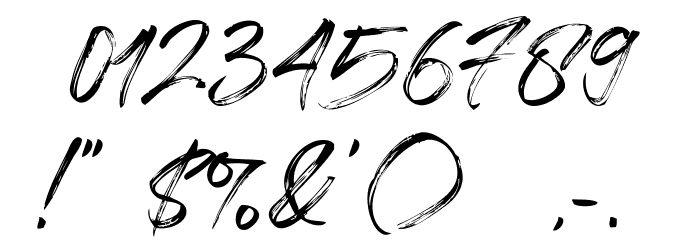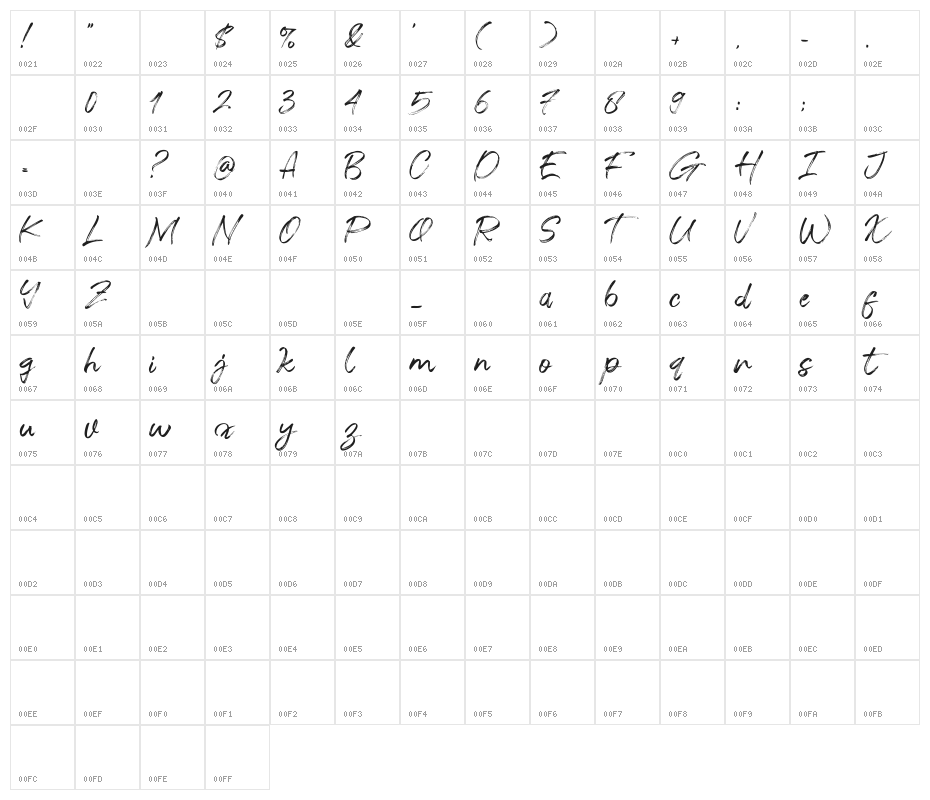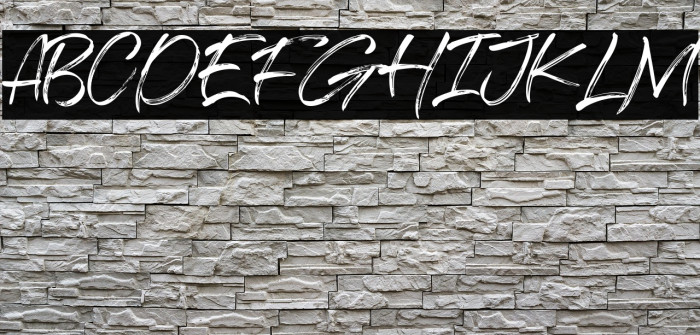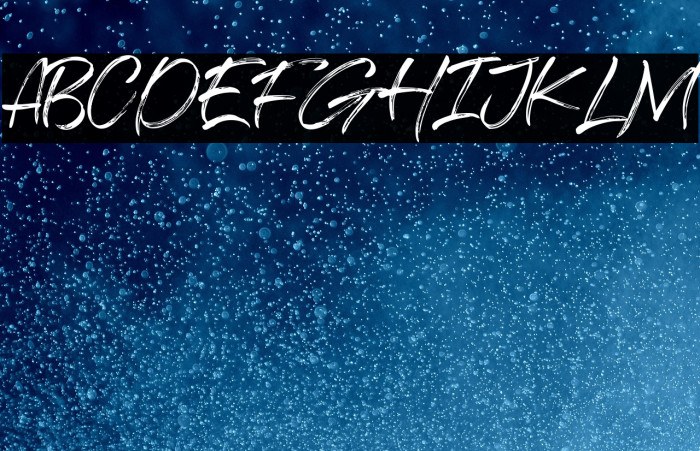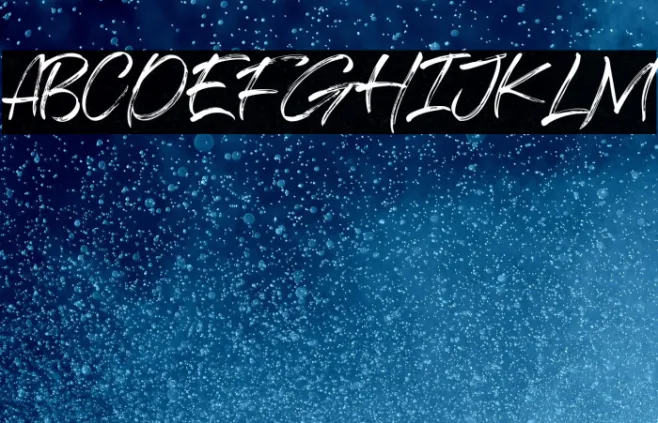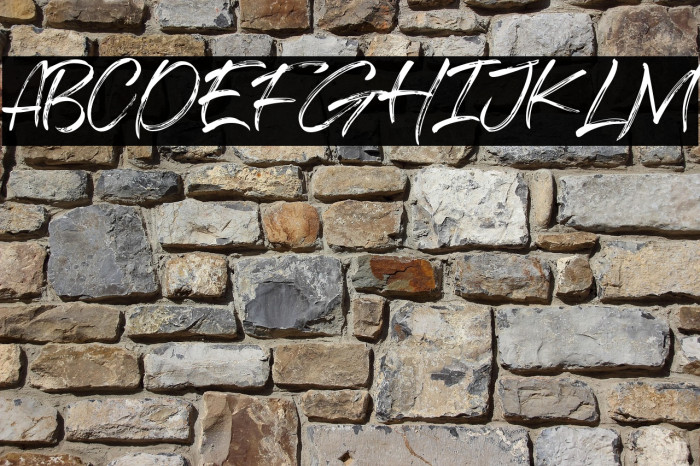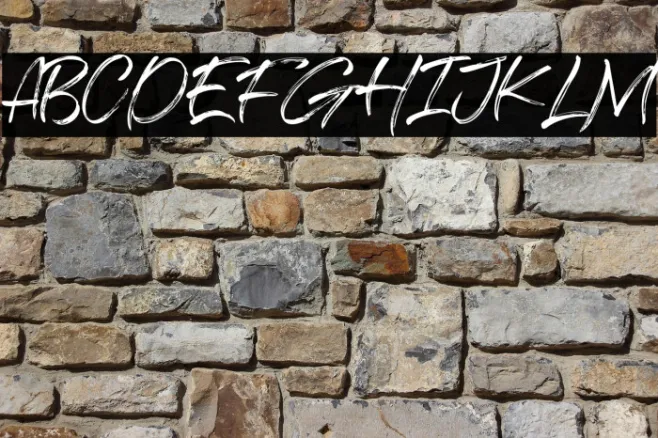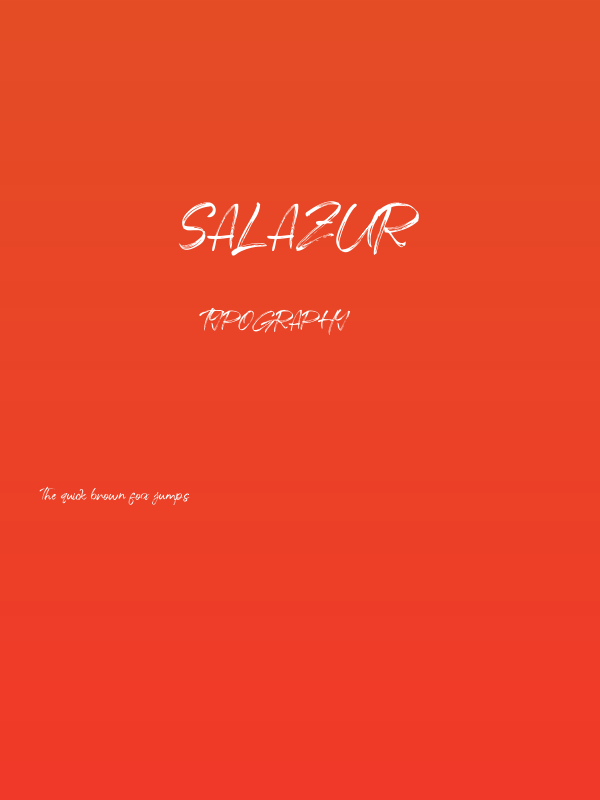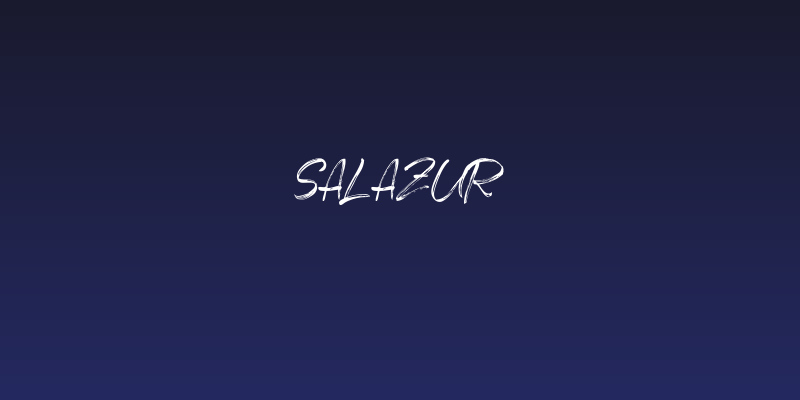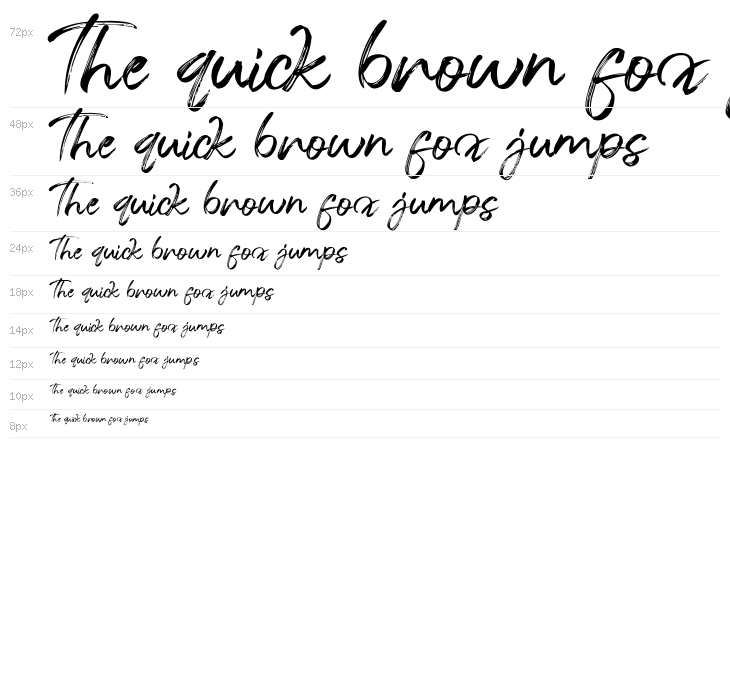
Salazur Font
Salazur Description
This font features a dynamic and expressive handwritten style, characterized by its fluid and energetic strokes. The letters exhibit a natural flow, with varying thickness that adds a sense of movement and spontaneity. The uppercase and lowercase letters maintain a consistent style, while the numerals and special characters blend seamlessly into the overall aesthetic. The brush-like texture gives it a raw and artistic feel, making it suitable for creative projects that require a personal touch.